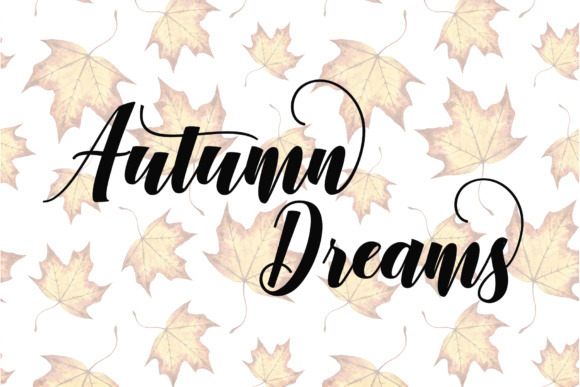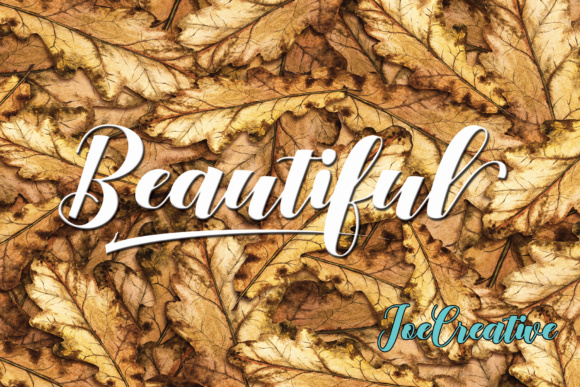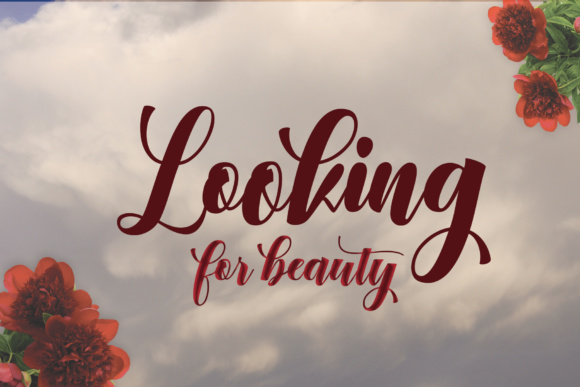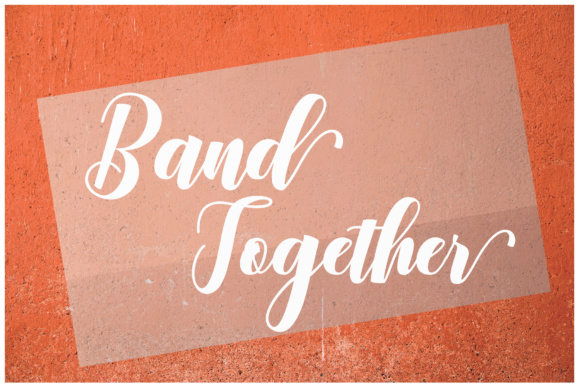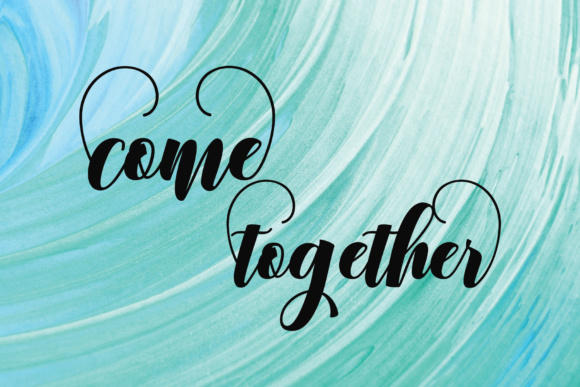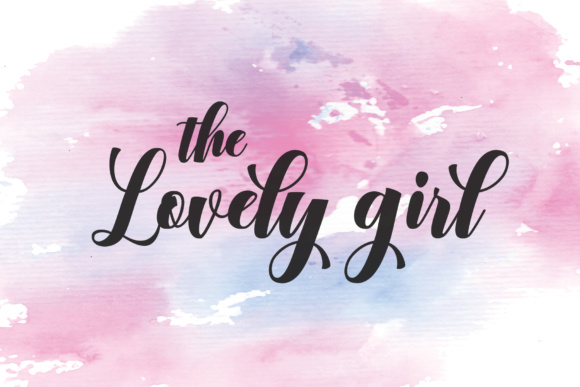
The Denmahis Script Font: A Modern Calligraphy Marvel
I’ll never forget the time I was working on a wedding invitation project, and my client asked for a font that was both elegant and modern. I scoured the internet, tried countless fonts, but nothing seemed to fit the bill. That was until I stumbled upon the Denmahis script font. Its beautiful, flowing lines and classic touches instantly won me over. In this article, I’ll share my love for this font, its features, and how to make the most of it in your designs.
A Personal Review: What I Love About Denmahis
Here’s what makes Denmahis a standout font:
- ✨ Natural writing style: Denmahis has a unique, handwritten feel that’s perfect for creating titles, signatures, logos, and invitations.
- ✅ Varying baseline: The font’s irregular baseline adds a touch of elegance and sophistication to any design.
- ✅ Fine lines and classic touches: Denmahis’s delicate lines and classic flourishes make it perfect for a wide range of design projects.
- ✨ OpenType features: Denmahis supports OpenType features, including glyphs and stylistic alternates, which allow for endless creativity.
While Denmahis is an amazing font, there are a few things to keep in mind:
- ⚠️ Legibility at small sizes: Like many script fonts, Denmahis can be difficult to read at very small sizes. It’s best used at larger sizes, such as headings or titles.
- 🤔 Pairing with other fonts: Denmahis is a bold font, so it can be challenging to pair with other fonts. Experiment with different combinations to find the perfect match.
The Story Behind Denmahis
Denmahis was created by a talented font designer who’s passionate about creating beautiful, modern scripts. Inspired by the elegance of classic calligraphy, Denmahis was designed to bring a touch of sophistication to any design project. With its natural writing style and OpenType features, Denmahis is perfect for designers, crafters, and creative hobbyists alike.
| Font Name | Denmahis Script Font |
| Author | JoeeCreative |
| What is Denmahis? | Denmahis is a modern calligraphy script font with a natural writing style and elegant touches. |
| What design projects is Denmahis best suited for? | Denmahis is perfect for titles, signatures, logos, invitations, and any design project that needs a touch of elegance and sophistication. |
| Does Denmahis support OpenType features? | Yes, Denmahis supports OpenType features, including glyphs and stylistic alternates, which allow for endless creativity. |